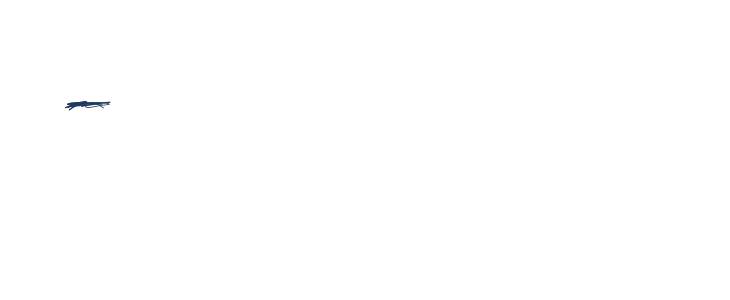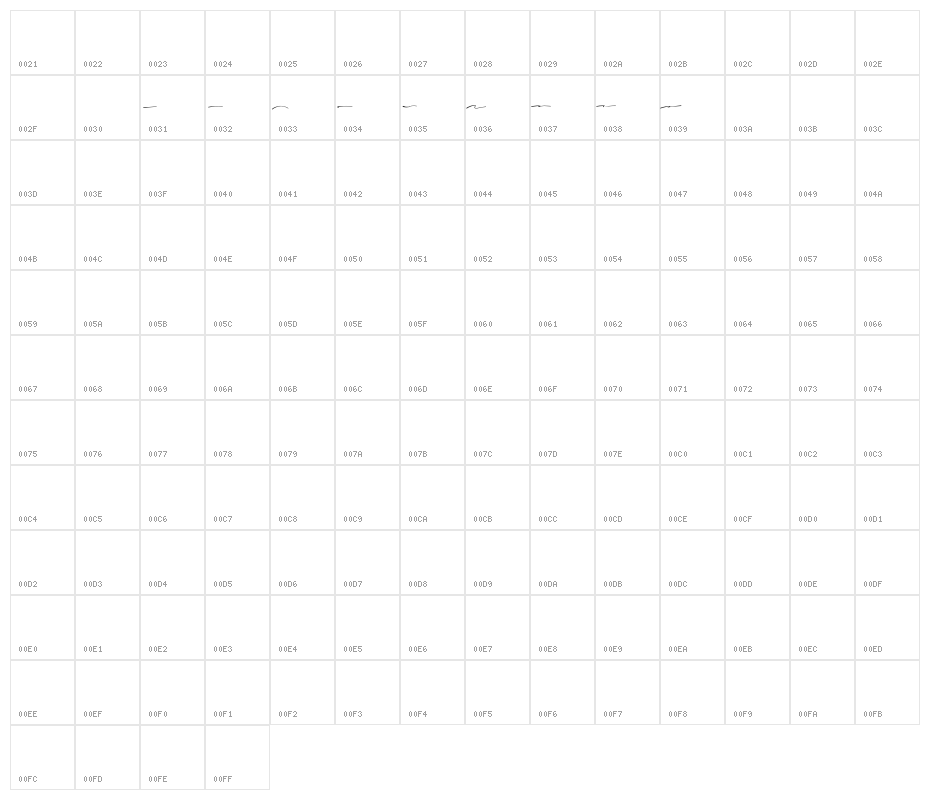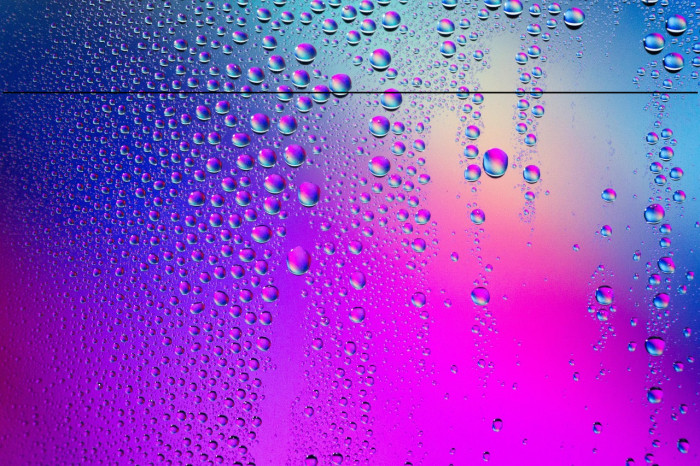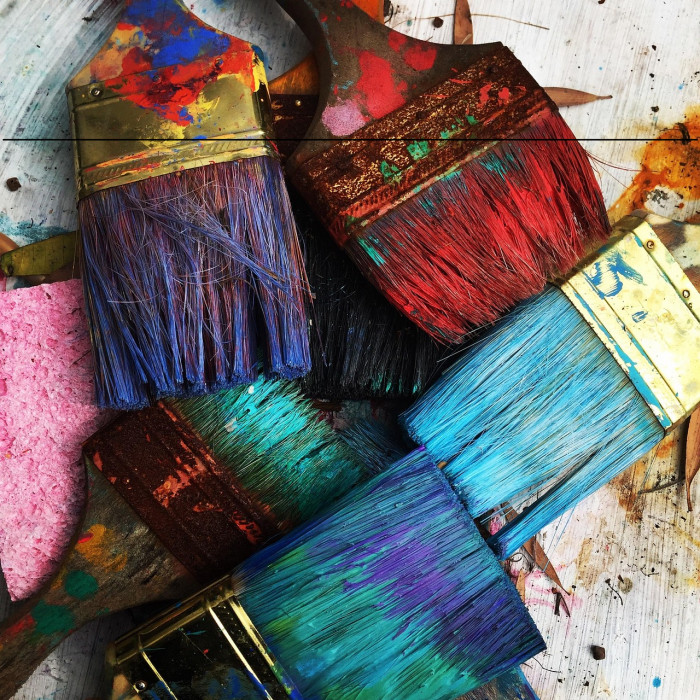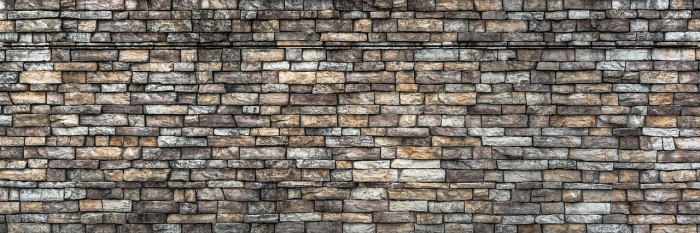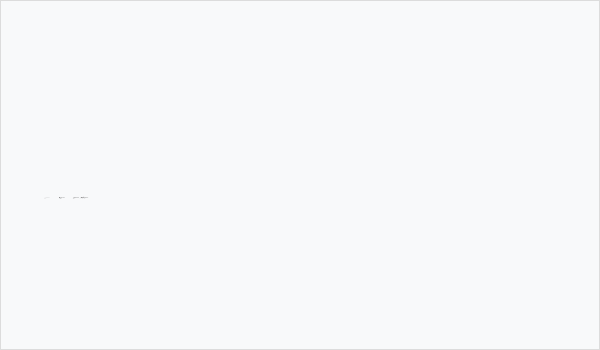
GalintaSwash-free Font
GalintaSwash-free Description
This font features an elegant and flowing script style, characterized by its intricate swashes and flourishes. The letters are interconnected with smooth, sweeping lines that give it a sophisticated and artistic appearance. The uppercase letters are particularly ornate, with extended strokes that add a touch of grandeur. The lowercase letters maintain a consistent style, complementing the uppercase with their graceful curves. The numbers and special characters are designed to match the overall aesthetic, ensuring a cohesive look across all text. This font is ideal for projects that require a touch of elegance and creativity.
| Overall Style | Elegant, Artistic |
| Proposed Projects | Wedding invitations, luxury branding, elegant packaging, artistic posters. |